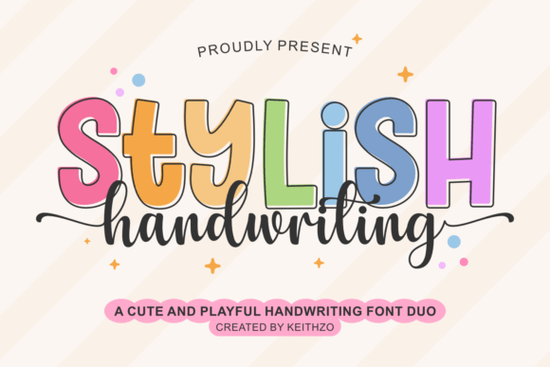
If you’ve been looking for a font that feels both playful and refined, you might be wondering what makes Stylish Handwriting Font worth a closer look. This font duo pairs a bold, modern display style with a sweet handwritten script that comes with elegant swashes. Whether you’re making birthday cards, tote bags, or social media graphics, it’s designed to bring a fresh, energetic vibe without looking chaotic.
What makes this font duo different from a single script font?
A single script font can be limiting when you want contrast in a design. The Stylish Handwriting duo gives you two distinct styles in one package. The display font is thick and bold, perfect for headlines or short phrases. The handwriting script is more flowing, with natural-looking connections and stylistic swashes you can turn on easily in programs like Canva or Cricut Design Space.
Can I use this font on a Cricut without manual welding?
Yes. One of the biggest frustrations with script fonts on cutting machines is having to weld letters together. The handwriting script in this duo features well-spaced letterforms and connecting strokes, so most words will cut cleanly without extra steps. It’s also designed with clean lines, which helps avoid tiny gaps or thin bridges that can ruin a cut.
What kind of projects fit this font best?
The Stylish Handwriting duo is especially suited for seasonal and celebration designs. Spring, Easter, and birthday themes feel natural with this playful yet clean look. Here are a few project ideas:
- Party decor: Use the bold display font for banners and the script for invitations.
- Sublimation gifts: Mugs, tumblers, and pillows benefit from the readable script.
- Digital planners: The handwriting style adds a personal touch without being hard to read.
- Social media graphics: Pair the two weights for engaging quotes and promotions.
Is this font beginner-friendly for teachers and hobbyists?
Absolutely. The set comes with numbers and punctuation, plus swashes that are built into the font (not separate dingbats). That means you don’t need advanced design skills to use the decorative elements. In most design software, you simply enable stylistic sets or alternate characters from the character panel. Teachers who make classroom decorations, name tags, or reward charts will find the script clear enough for young readers yet playful enough to capture attention.
- Test the swashes: Open the glyphs panel to see all the alternate letterforms and tails.
- Pair with a simple body font: A clean sans-serif will balance out the bold display weight.
- Resize for readability: The script is best at medium to large sizes – avoid using it for long paragraphs.